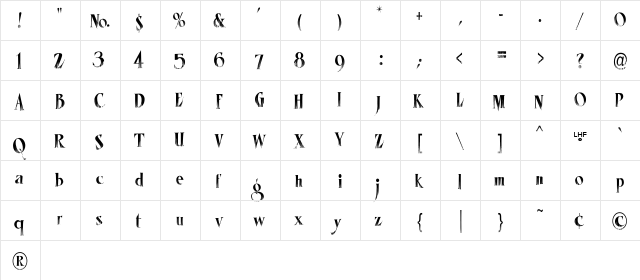
LHF Mister Spooky COND Regular
Design Context for LHF Mister Spooky COND Typeface
LHF Mister Spooky COND is a composed and adaptable typeface that performs quietly and consistently across a wide range of design contexts. The condensed width makes it efficient for tight spaces without sacrificing legibility.